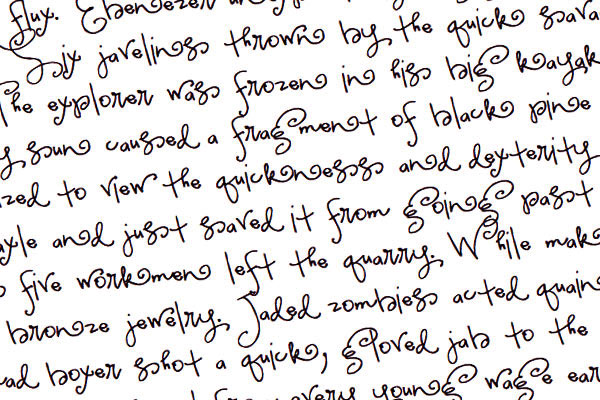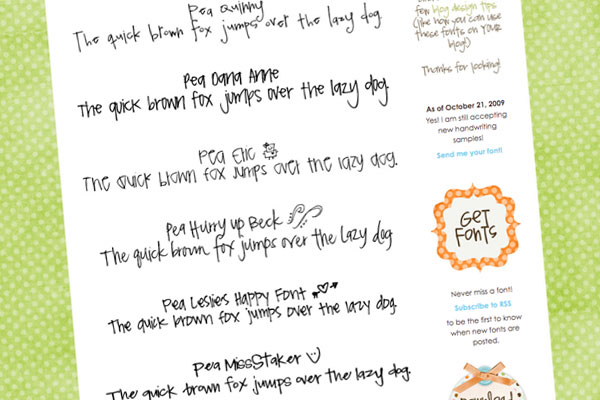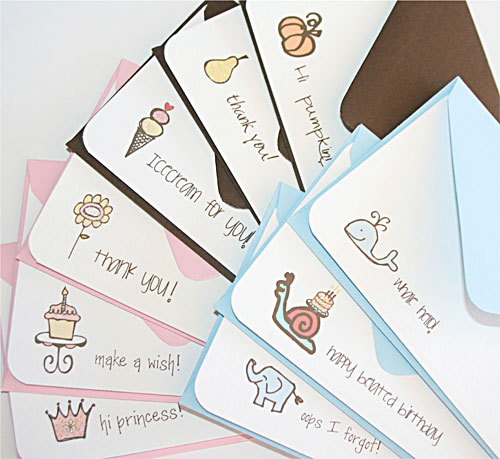
Ok- I know I say this every time, but wow! I am just so excited about all the new fonts this time!
Some of you have been noticing (and inquiring about! ;)) this lovely font on my blog lately- I just about started hyperventilating when Kadee sent me her handwriting sample! I have been using her font on *everything* lately! :) It’s so unique and I just love, love, love it. I am happy to report it is now available for download! You can get this font for free right here on the Fonts for Peas blog! :) Kadee also sent us 4 “sentiments” fonts that I just flipped over!
See the buttons in my sidebar that say blog-things like Subscribe, Categories, Archives, etc? That’s from Kadee’s Blog sentiments font! :) Kadee’s creativeness doesn’t just extend to handwriting- she also has a super cute craft blog! After snagging all her fonts- take a peek around for some really stunning card ideas! :)
Isn’t this one just delightful? :) This is Pea Lovey Dovey from Brittany. She brings us 4 precious and whimsical fonts this time and believe me, you don’t want to miss any of them! :)
Pea Anna Banana
Pea Lovey Dovey
Pea Mee-Mee
Pea Quinny
I am loving these calendar and greetings doodles from Dawn! There were so many awesome doodles, I had to make two whole fonts just to contain them all! You can also get her regular handwriting font!
I love making the fonts, but the best part of it is seeing what *you* do with them! :) Look at these darling note cards Donna of Monkey Moo Moo designed using pea fonts and doodles! The “Whale Hello!” one just makes me want to squeak! :) Donna has these cards (with coordinating envelopes!) in her precious little etsy store– she specializes in custom party decorations, crowns, invitations, stationery, and other wonderful treasures for special celebrations. And today she wants to give away not one, but two (2) of these nine-card sets! How divine!